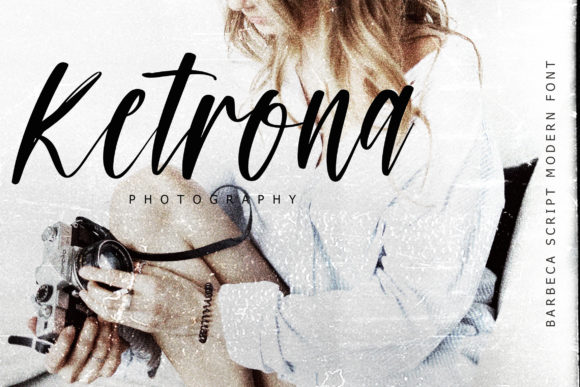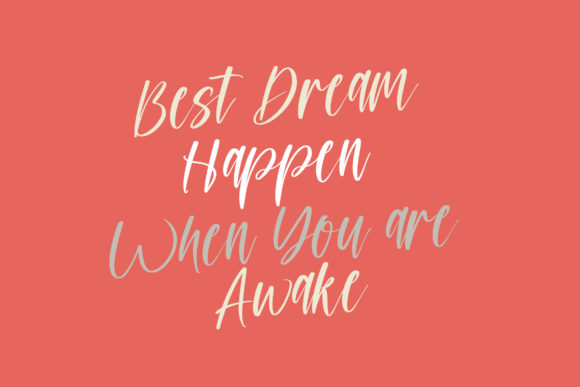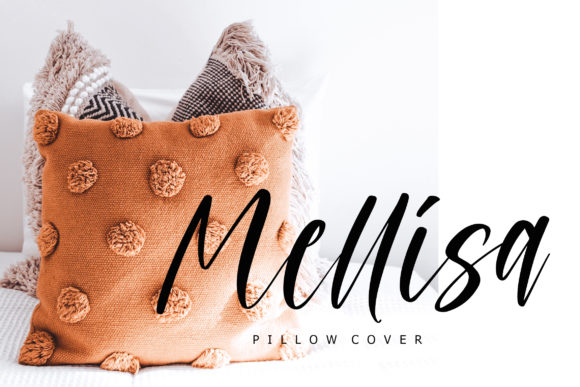
Introduction to Barbeca  Font
Barbeca Script is a modern handwritten font that can make your text appear elegant, luxurious, and modern.
This font is perfect for branding projects, logo, wedding designs, social media posts, advertisements, product packaging, t-shirt design, product designs, label, photography, watermark, invitation, stationery and more .
Barbeca  Font offers exceptional quality and versatility, making it a valuable addition to your design toolkit. Whether you’re creating for personal projects or commercial use, Barbeca  Font delivers professional results.